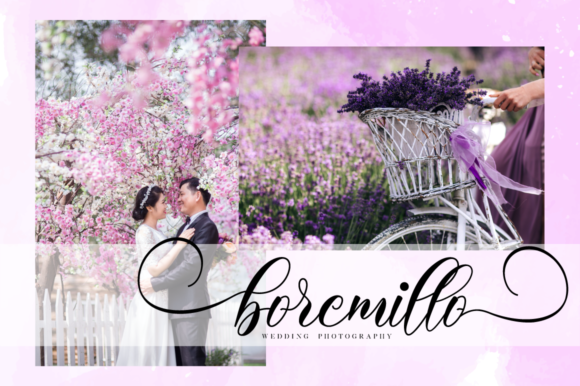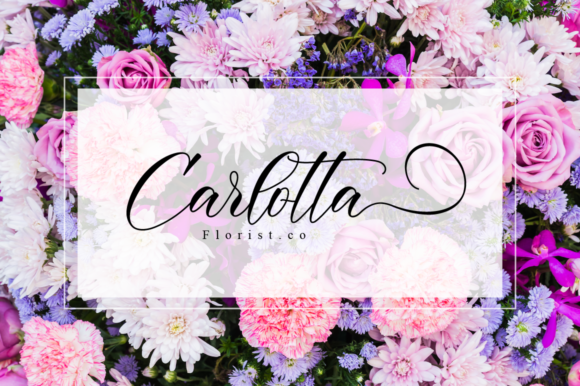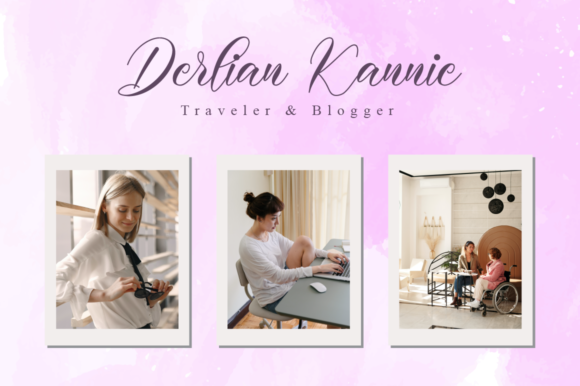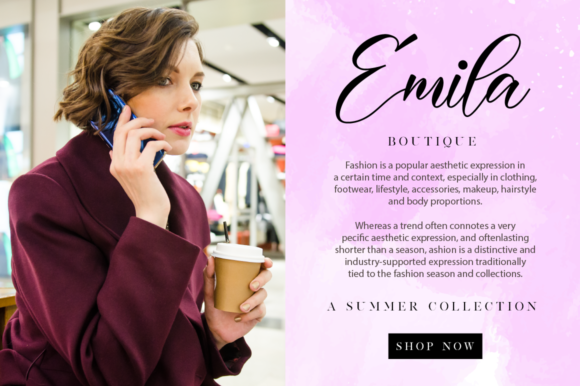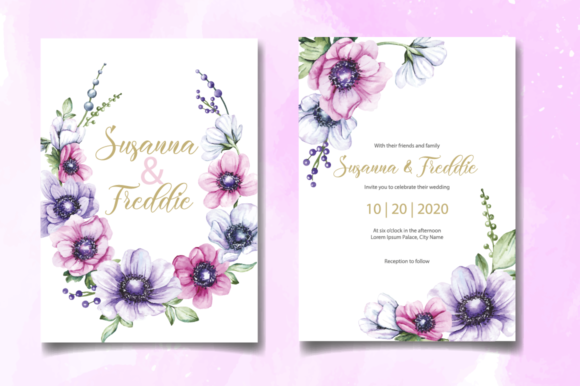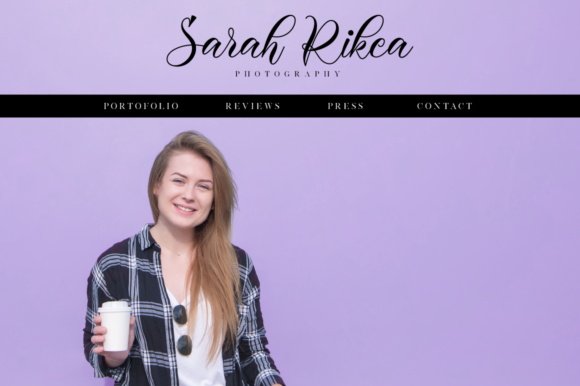
The Perfect Brushstroke: Unleashing the Magic of Darelina Font
Have you ever sat at your desk, staring blankly at a blank canvas, waiting for inspiration to strike? The blank page can be intimidating, but it’s in those moments of creative uncertainty that we discover our most innovative ideas. For designers, it’s the spark of a new project that sets our imagination ablaze, and for me, it was the discovery of the Darelina Font.
This stunning handwritten font is a game-changer for any designer looking to add a touch of elegance and sophistication to their work. With its PUA encoding, smooth lines, and gorgeous glyphs, Darelina Font is the perfect tool for creating designs that truly stand out. Whether you’re working on a logo, brochure, or poster, this versatile font is sure to elevate your work to new heights.
Darelina Font Key Features
- Character Set: Includes a wide range of characters, including Latin, Cyrillic, and Greek alphabets, as well as punctuation and symbols
- Unique Characteristics: Features a unique, handwritten style with varying line widths and flourishes, making it ideal for creative and artistic applications
Darelina Font Review
I’ve had the chance to work with the Darelina font, and I must say, it’s a beautiful addition to any design project. ✨ The font’s elegant script style is perfect for creating a sophisticated and luxurious look. It’s great for wedding invitations, luxury branding, and even elegant packaging designs.
The Darelina font has some excellent features that make it stand out. ✨ Here are a few of my favorites:
- Wide language support, making it perfect for international projects.
- A range of font styles and weights, giving you plenty of flexibility in your designs.
- Excellent legibility, even at small font sizes.
However, there are a few limitations to consider. ⚠️ While the font is highly customizable, some users may find it difficult to adjust the spacing and kerning to their liking. Additionally, the font may not be suitable for text-heavy projects, as the script style can make it difficult to read large amounts of text.
Overall, I’m impressed with the Darelina font. It’s a high-quality addition to any designer’s toolkit, and I would highly recommend it for projects where a touch of elegance is required.
Tips for Getting the Most Out of Darelina Font
To get the most out of the Darelina font, try the following:
- Pair it with a clean and simple background to let the font take center stage.
- Use the Darelina font for headings and titles to add a touch of elegance.
The Darelina font is suitable for a variety of designs, including:
- Social media posts and ads.
- Business cards and resumes.
- Wedding invitations and event materials.
- Blog posts and
Alternatives to Darelina Font
Great Vibes is a beautiful, modern script font perfect for creating a friendly and approachable atmosphere. It’s ideal for use in branding, advertising, and packaging. Great Vibes has a similar feel to Darelina Font, but with a more relaxed and casual tone.
Carolyna Pro is a elegant and sophisticated script font designed for luxury brands and high-end packaging. It’s perfect for creating a sense of refinement and sophistication. Compared to Darelina Font, Carolyna Pro is more refined and polished, making it ideal for premium brands.
Playfair Display is a luxurious and elegant serif font perfect for creating a sense of grandeur and sophistication. It’s ideal for use in branding, advertising, and packaging. While it’s not a script font like Darelina Font, Playfair Display has a similar level of elegance and sophistication, making it a great alternative for luxury brands.
Alex Brush is a beautiful, handwritten script font perfect for creating a personal and intimate atmosphere. It’s ideal for use in branding, advertising, and packaging. Compared to Darelina Font, Alex Brush has a more organic and handwritten feel, making it perfect for brands that want to convey a sense of personality and individuality.